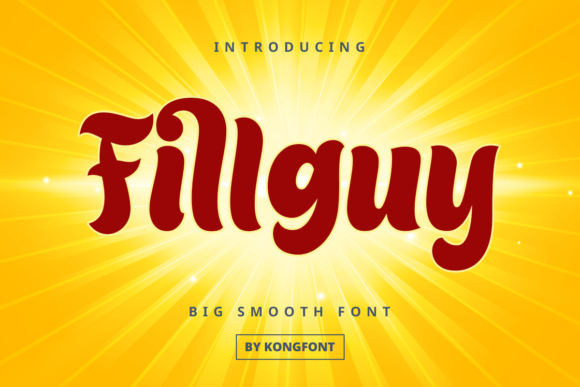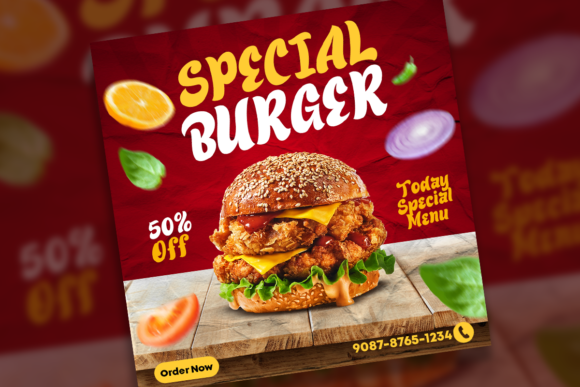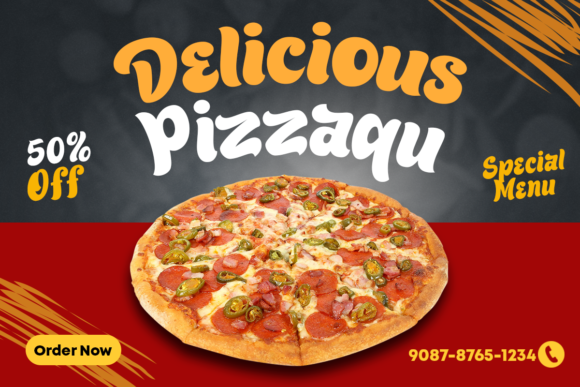
Fillguy Font
Fillguy Font: A Modern and Playful Handwritten Typeface
Introducing Fillguy font, a modern and playful handwritten typeface designed to bring a fresh, creative touch to your projects. Created by Kong Font Studio, this versatile font is perfect for crafters and designers looking to add a fun, contemporary flair to their work.
Key Features of Fillguy Font
• Modern Handwritten Style: Adds a fresh, playful touch to text
• Versatile Application: Ideal for various creative projects
• Playful Character: Perfect for designs that need a fun, lighthearted feel
Perfect for Creative and Fun Projects
Fillguy font excels in creating:
• Eye-catching social media graphics
• Unique branding materials
• Fun product packaging designs
• Engaging craft projects
• Playful website headers and graphics
Why Choose Fillguy Font?
This font’s unique blend of modernity and playfulness ensures your content stands out with style. Its handwritten character adds a personal touch to any project, making it ideal for designers who want to create impactful, contemporary visuals with a fun twist.
Fillguy font is more than just a typeface; it’s a design tool that brings modernity and playfulness to your projects. Whether you’re working on branding materials, craft projects, or creative layouts, this font will help you create designs that truly stand out with its unique style. Add Fillguy to your font collection today and experience the transformative power of its modern, playful aesthetic on your creative endeavors. Let this charming handwritten font be the secret ingredient that takes your designs from good to irresistibly fun, setting your work apart in a crowded design landscape. Whether you’re an experienced designer or a craft enthusiast, Fillguy is your go-to font for embracing creativity and playfulness in your work. Its versatility allows it to shine in various applications, from digital designs to physical craft projects, making it a valuable asset in any creator’s toolkit.